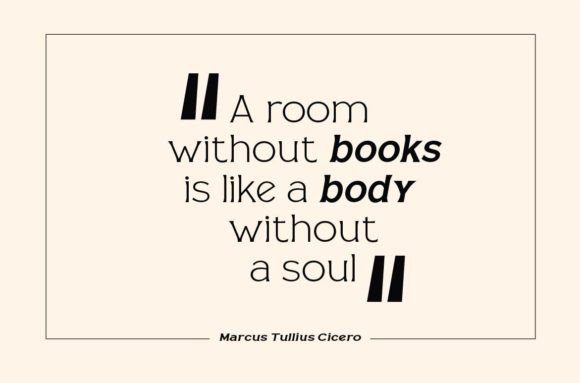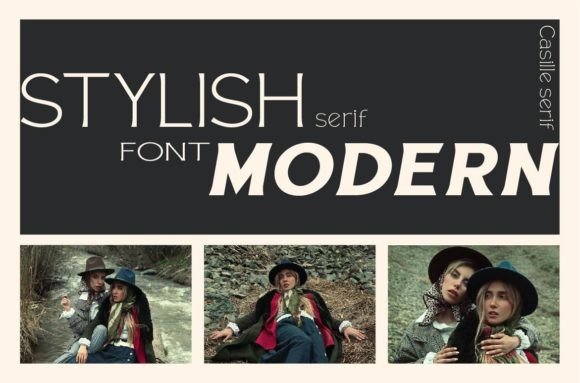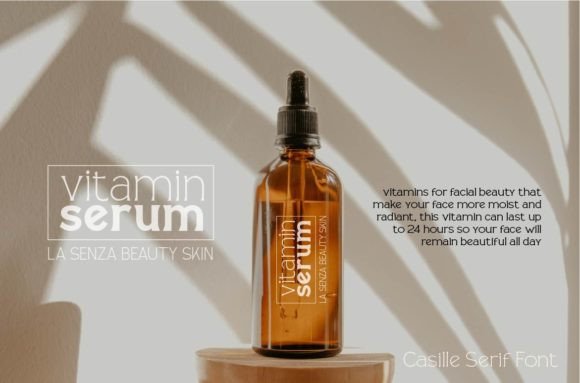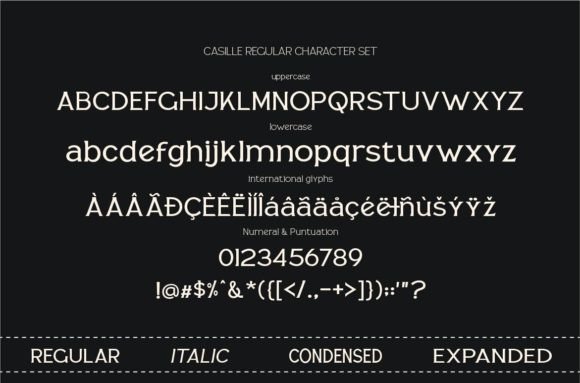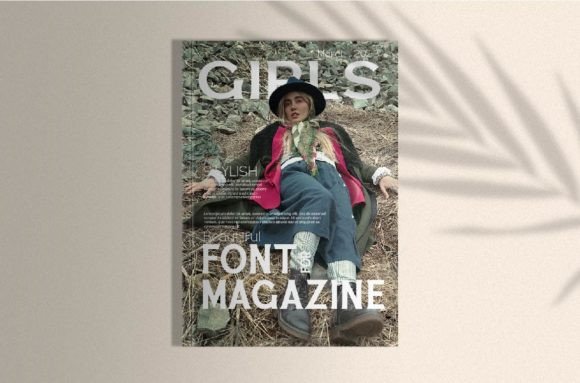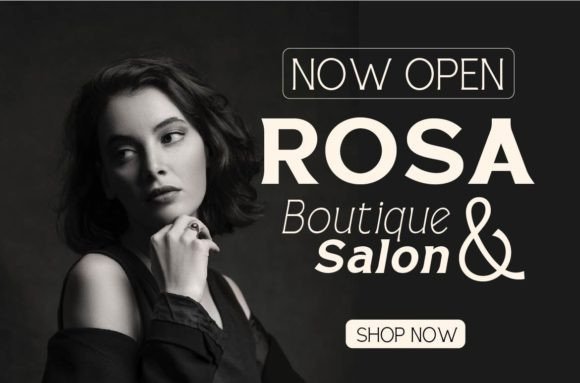
The Perfect Blend of Style and Legibility: Casille Font
As designers, we’ve all been there – staring at a blank canvas, trying to come up with the perfect idea to convey a message or evoke a feeling. It’s that moment when everything clicks, and the creative juices start flowing. For me, it’s often sparked by a great font. And that’s where the Casille Font comes in – a stunning font family that’s perfect for making a statement.
The Casille Font family is designed to be versatile and visually appealing, making it a valuable tool for designers. With 126 families to choose from, it’s easy to find the perfect style to match your brand or message. Whether you’re creating invitations, branding materials, or quotes, the Casille Font is sure to make a lasting impression.
Casille Font Key Features
- Font Family: Casille Font is a sans-serif font family designed for digital use. It comes in multiple weights and styles.
- Character Set: The font family includes a wide range of characters, including Latin, Cyrillic, and Greek alphabets, as well as punctuation and symbols.
- Unique Characteristics: Casille Font features a unique blend of modern and minimalist design elements, making it suitable for use in digital products, such as websites, apps, and software.
Casille Font Review
I recently had the chance to work with the Casille font, and I must say it’s an interesting combination of elegance and playfulness. ✨ The rounded edges and subtle curves give it a friendly, approachable feel that’s perfect for body text or headings in digital designs.
One of the things that really stands out about Casille is its versatility. ✨ It comes in a range of weights and styles, from light and delicate to bold and striking. This makes it easy to use in a variety of contexts, from formal documents to social media graphics.
While Casille is a great font, it’s not without its limitations. ⚠️ The design can feel a bit overused at times, and the rounded edges may not be to everyone’s taste. Additionally, the font may not be as effective in print design, where the subtlety of the curves may get lost.
Another issue I encountered was the font’s performance in certain font sizes. ⚠️ At very small sizes, the letters can become difficult to read, which may require some careful adjustment in the design.
Overall, I think the Casille font is a solid choice for digital designers. While it may not be perfect for every project, its versatility and friendly feel make it a great option for a wide range of applications.
- Available in multiple weights and styles
- Perfect for body text and headings
- Works well in digital designs
- May not be effective in print design
- Performance can be an issue at very small font sizes
For best results, use Casille Font in headings and titles to add a touch of elegance to your design.
- Use the font to create headings, titles, and other text elements that require a touch of sophistication.
Use Casille Font to create eye-catching headings and titles in your presentations and documents.